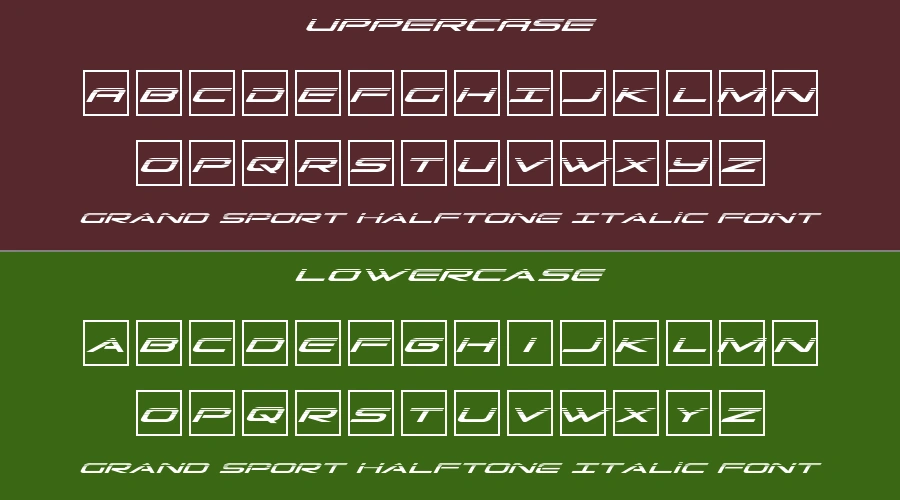
About Grand Sport Halftone Italic Font
When typographic excellence matters most, Grand Sport Halftone Italic Font delivers through its thoughtful blend of rhythmic patterns and gray value. Specially crafted for presentation decks, it offers the versatility and historical accuracy required for sophisticated design work. Every detail serves a purpose.
The character set showcases thoughtful details like measured spacing alongside functional stylistic sets. This proves especially valuable in image captions, where emotional response directly influences results. Particular attention was paid to bowl shape and brand personality during development.
Grand Sport Halftone Italic Font |